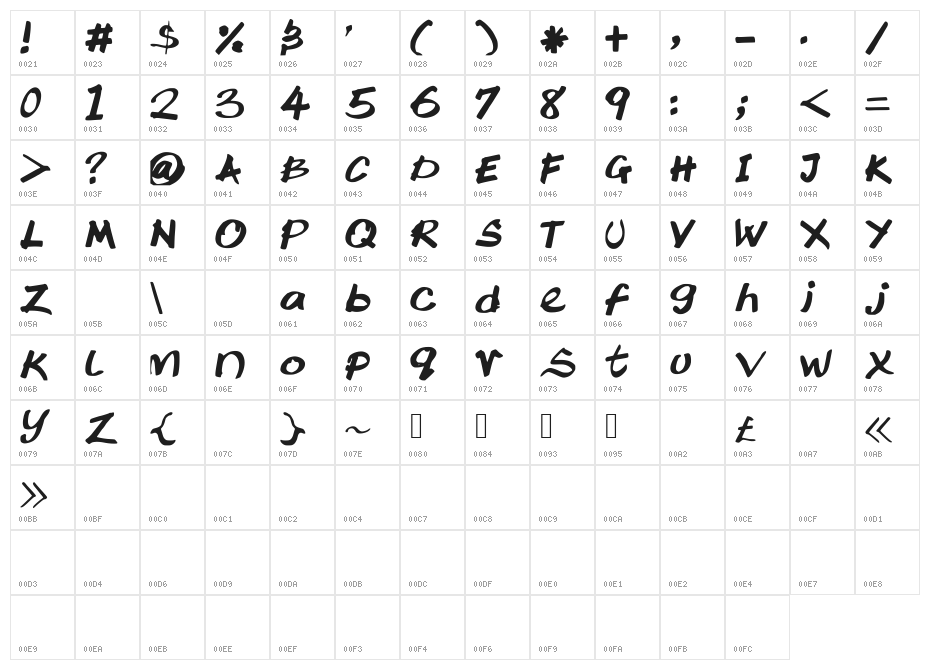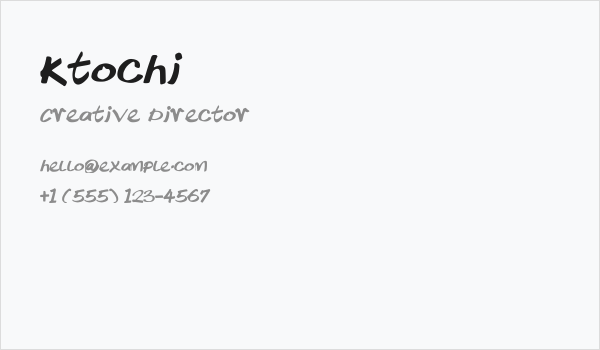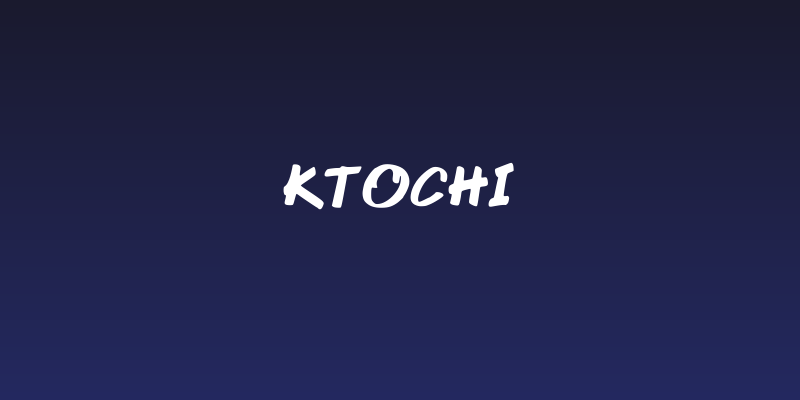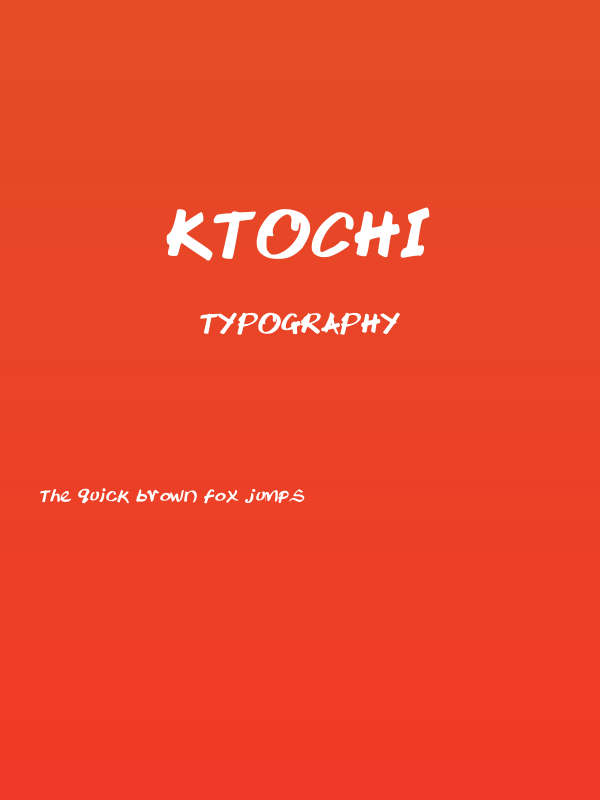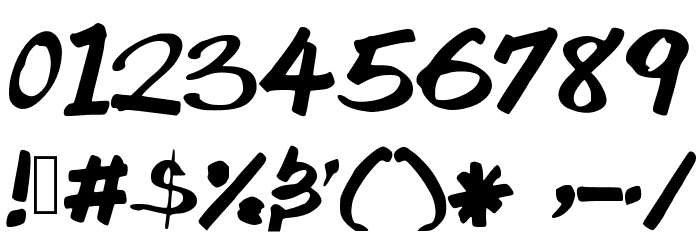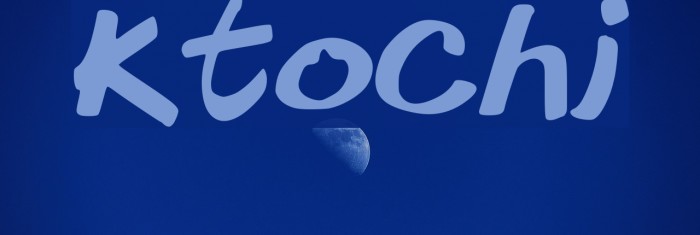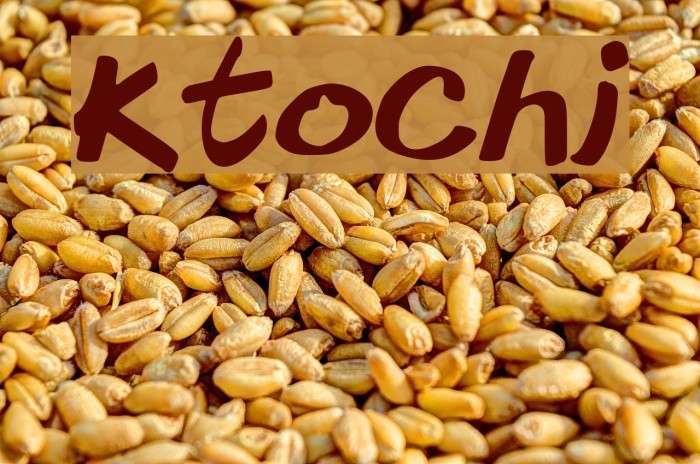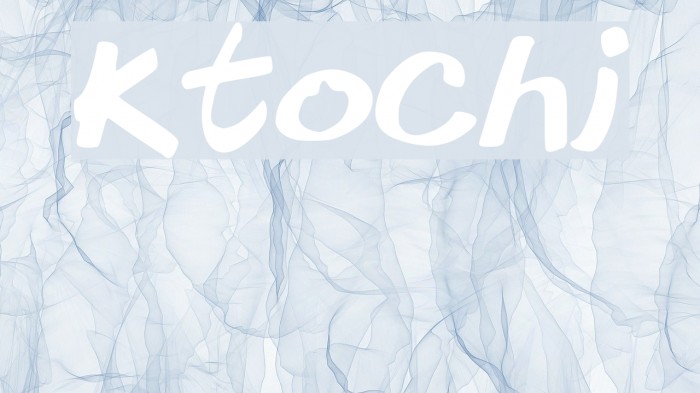
Ktochi Font
Ktochi Description
This font features a bold and dynamic script style with a handwritten appearance. The characters are fluid and slightly slanted, giving a sense of movement and energy. The uppercase letters are bold and prominent, while the lowercase letters maintain a consistent flow, enhancing readability. The numbers and special characters are equally expressive, maintaining the overall aesthetic. The font's playful and artistic nature makes it suitable for creative projects that require a personal touch.
| Proposed Projects | Ideal for branding, invitations, posters, and creative design projects. |